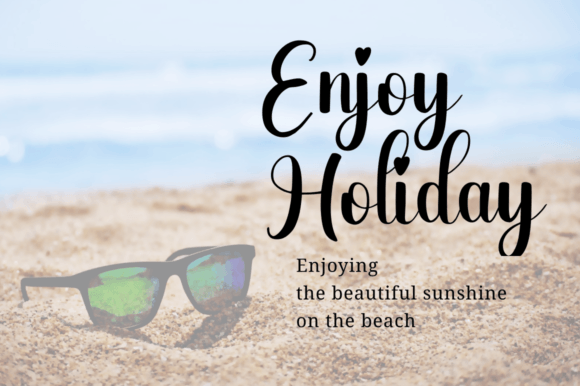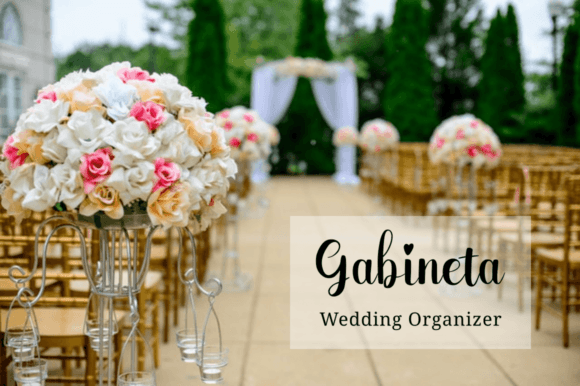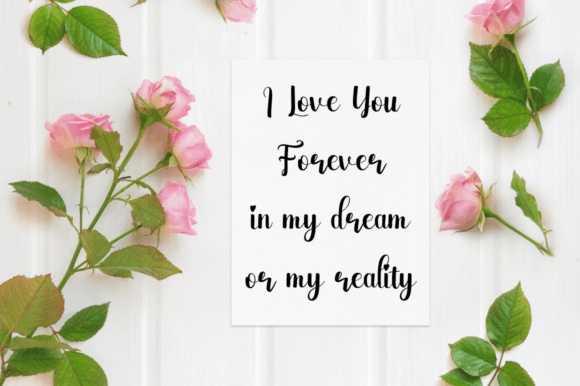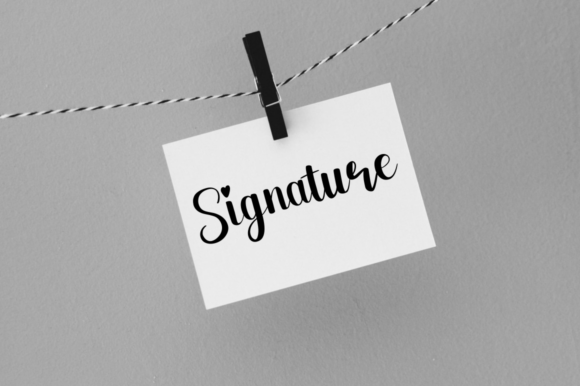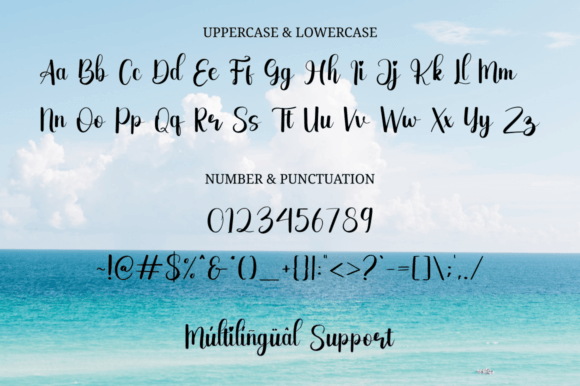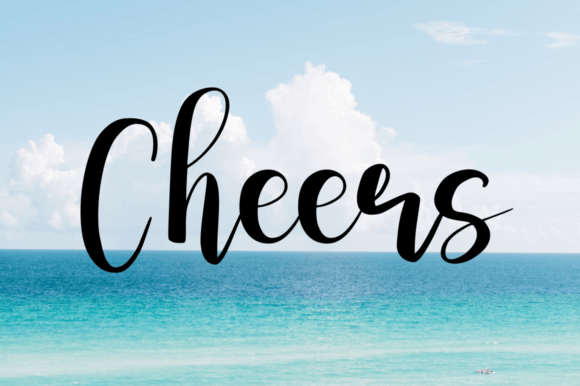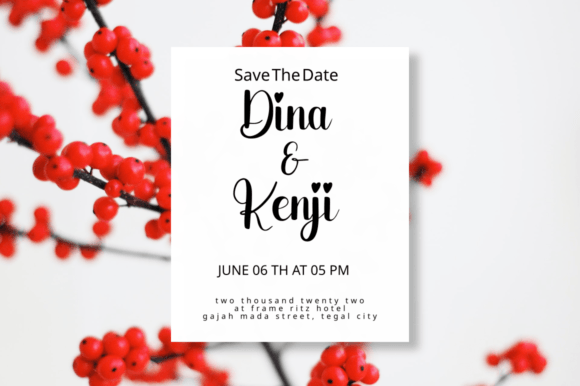
Blue Beach Font
About Blue Beach Font
Blue Beach is a beautiful and natural handwritten font that exudes simplicity and elegance. Its organic and flowing design makes it a perfect choice for a wide range of creative applications. Whether you’re working on logotypes, headlines, corporate identity, brand identity, apparel designs, posters, music covers, movies, games, magazines, books, comics, cartoons, YouTube thumbnails, Instagram posts, websites, or any other creative project, Blue Beach adds a touch of natural beauty to your designs.
The font’s versatility allows it to seamlessly integrate into various design contexts. Its effortless and casual appearance makes it ideal for projects that require a friendly and approachable vibe, while its clean and legible characters ensure readability, even in smaller sizes. Blue Beach brings a sense of authenticity and warmth to your designs, making them visually appealing and engaging.
Incorporating Blue Beach into your creative projects allows you to infuse a natural and handwritten charm, enhancing the overall aesthetic and making your designs stand out. Whether you’re designing for digital or print media, this font adds a touch of elegance and creativity, making it a valuable asset for designers looking to create visually stunning and impactful designs. Let Blue Beach be the perfect choice for expressing your creativity and bringing a natural and beautiful touch to your design projects.